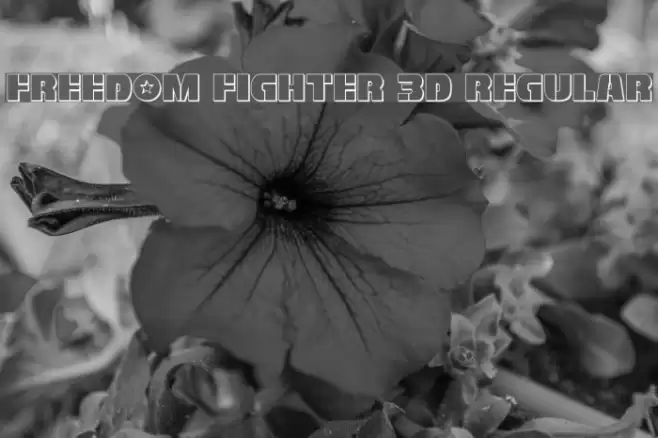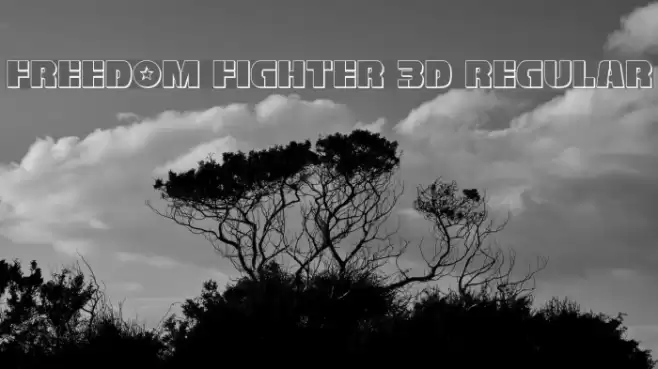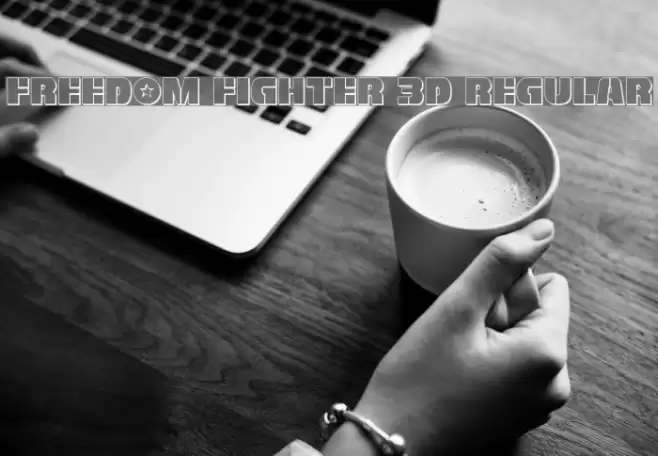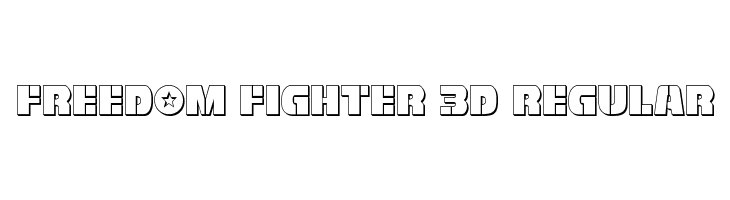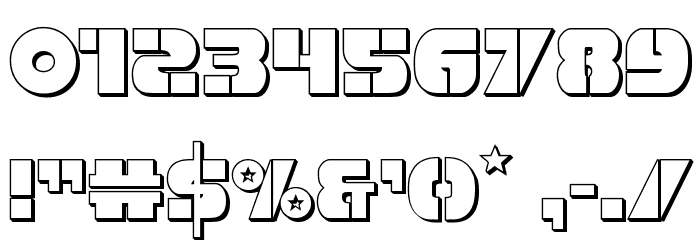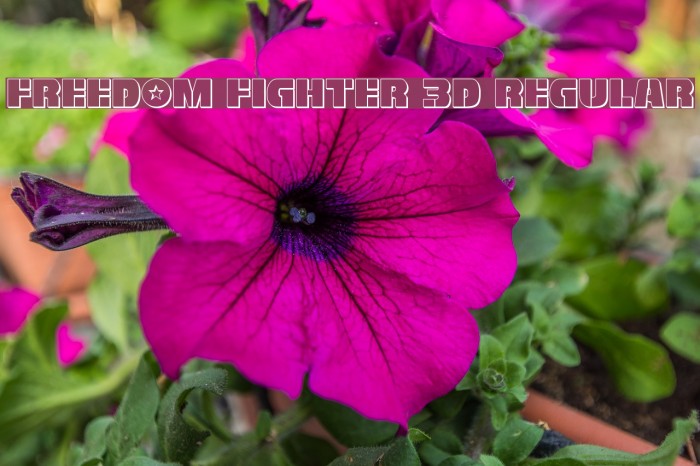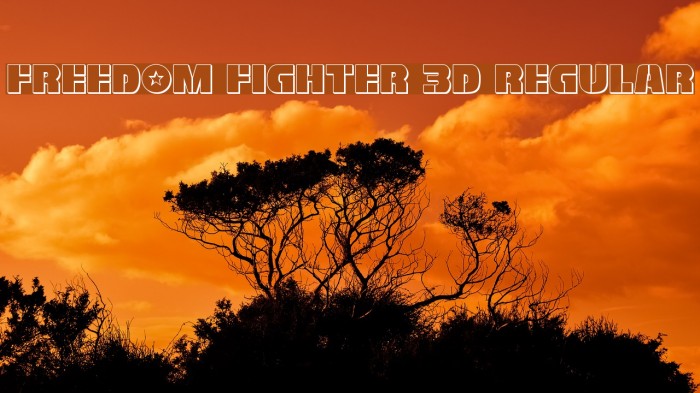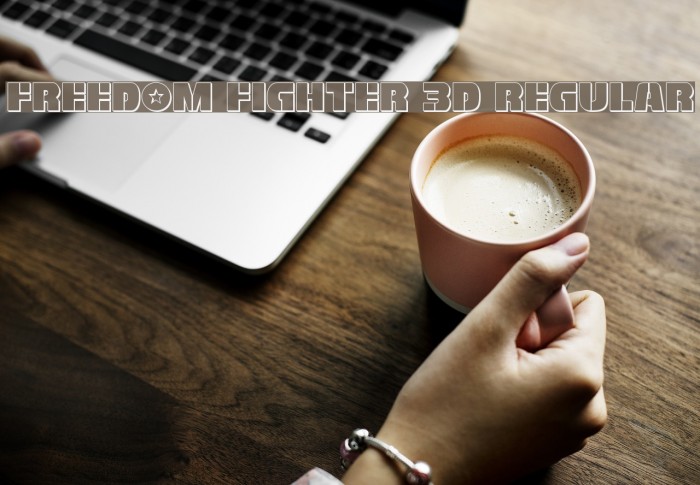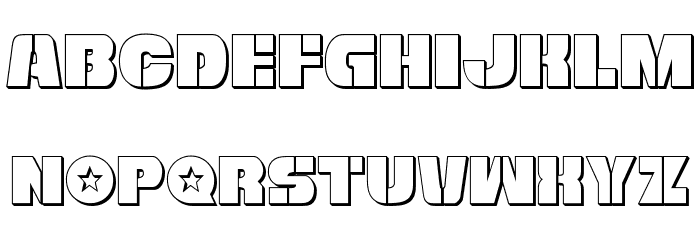
Freedom Fighter 3D Regular Font
Freedom Fighter 3D Regular Description
This font features a bold, three-dimensional style with a strong, impactful presence. The characters are outlined with a thick border, giving them a robust and sturdy appearance. The uppercase letters include unique star-shaped cutouts within some characters, adding a decorative and patriotic flair. The numbers and special characters maintain the same bold outline, ensuring consistency across the font. The overall design is eye-catching and suitable for projects that require a strong visual impact.
A bold, 3D outlined font with decorative star cutouts from Uncategorized fonts.
- Proposed Projects: Ideal for posters, headlines, branding, and any design needing a bold, impactful statement.
- Overall Style: Modern, Decorative